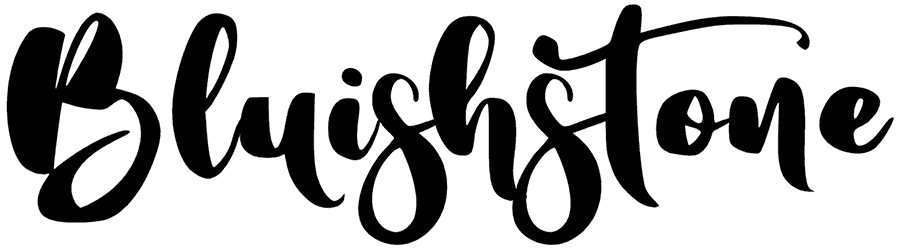
Bluishstone Font
Need to spread some friendly vibes in your words? This handwritten script font might be exactly what you need! Blushstone font contains bold characters with a brush effect design that makes continuous letters with some extra rounded elements.
You can use this romantic font to make a unique summer party flyer and write an interesting headline for any summer or beach party texts. A numeric set is not included in this file.